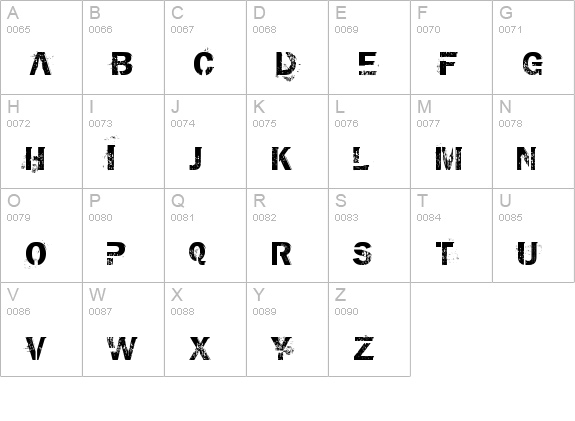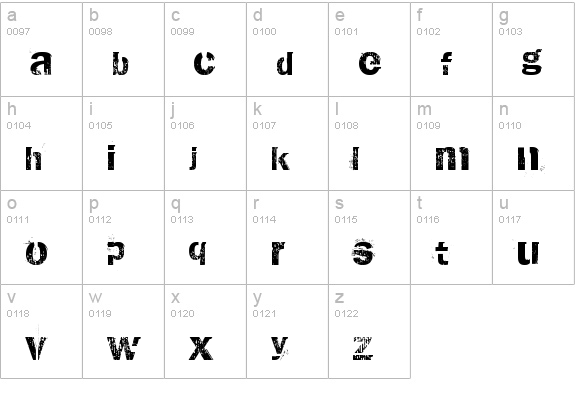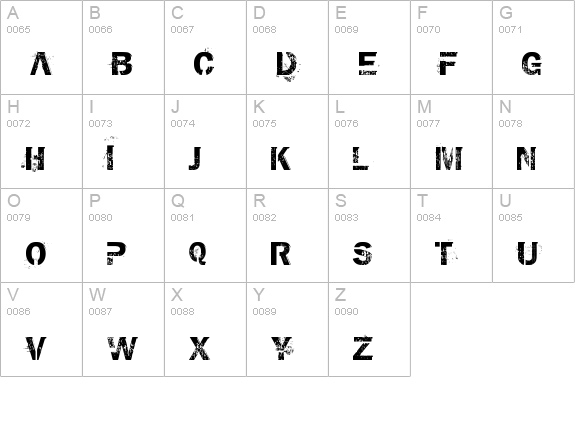
AnthologY Font Details
AnthologY font is a stunning display typeface that exudes elegance and sophistication. With its unique blend of sharp angles and flowing curves, this font is perfect for adding a touch of class to any project. Whether you're designing a logo, a poster, or a website, AnthologY font will make your text stand out with its modern yet timeless appeal. What's even better is that AnthologY font is completely free to download at FontsMarket.com. That's right, you can enhance your designs with this beautiful typeface without spending a penny. So why wait? Download AnthologY font now and elevate your typography game to new heights!